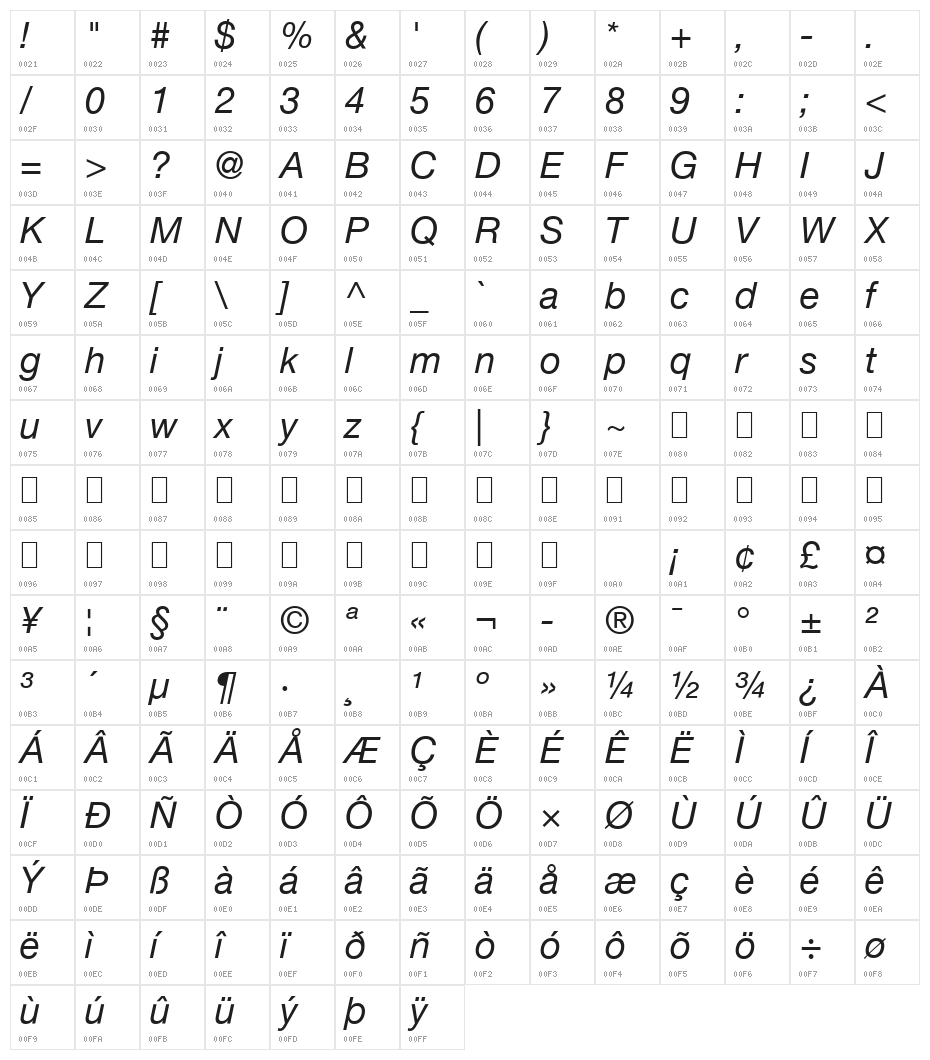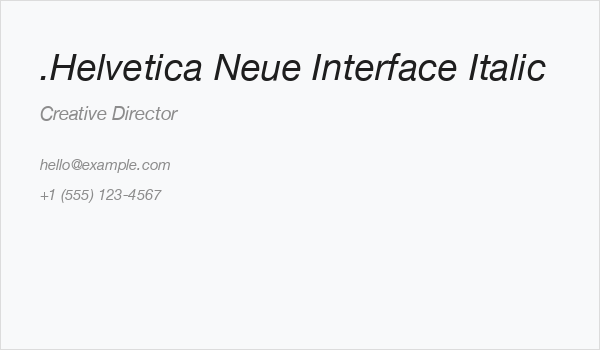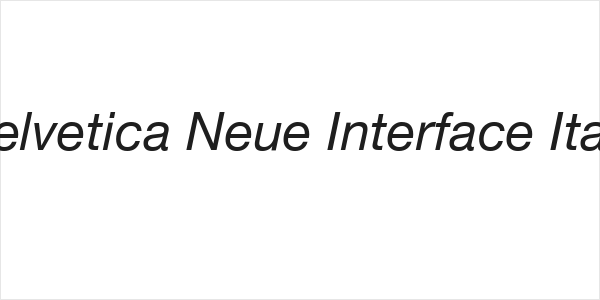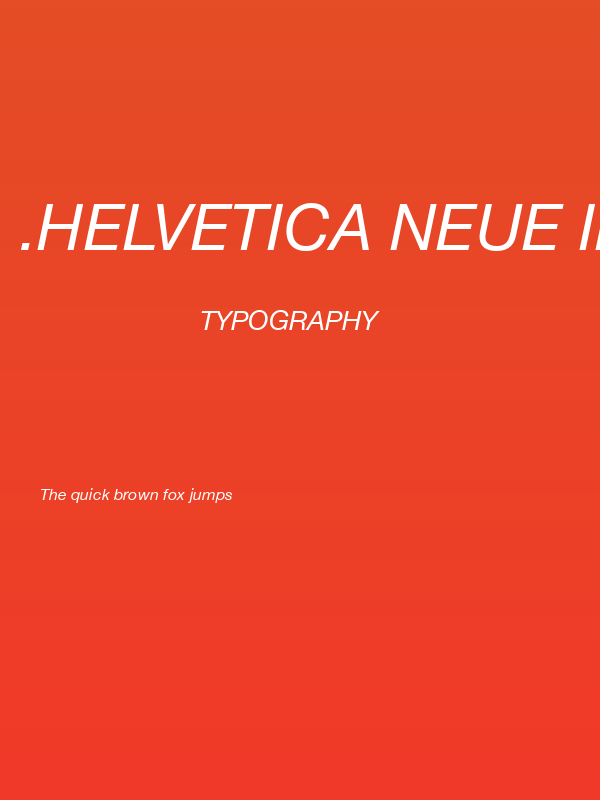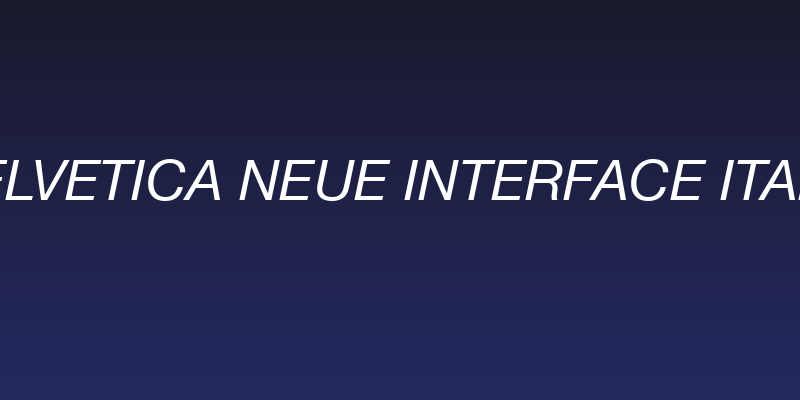
.Helvetica Neue Interface Italic Font
.Helvetica Neue Interface Italic Description
This font features a sleek, modern design with a clean and professional appearance. The italic style adds a dynamic and elegant touch, making it suitable for both digital and print media. Its sans-serif structure ensures readability, while the uniform stroke width maintains a consistent look across all characters. The font's design is versatile, making it ideal for a wide range of applications, from corporate branding to editorial content. The characters are well-proportioned, with a slight slant that enhances its contemporary feel. The numerals and special characters are designed to complement the alphabet, ensuring a cohesive look throughout.
| Proposed Projects | Ideal for corporate branding, editorial content, digital interfaces, and advertising materials. |